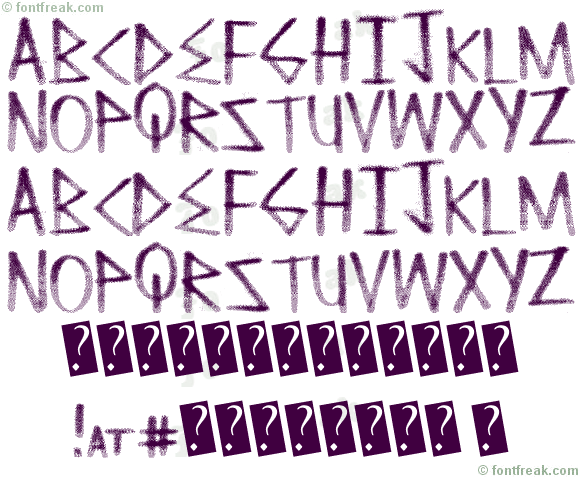
CleanFade
CleanFade by Xerographer Fonts is a striking display font that masterfully combines modern aesthetics with a hint of artistic flair. Released in 2012, this font is categorized as a decorative typeface, offering a unique visual appeal that is both bold and versatile. The CleanFade font features a distinctive stroke weight that varies throughout its characters, creating a dynamic sense of movement while maintaining a clean overall appearance. Its slightly irregular edges contribute to a handcrafted feel, making it ideal for projects that require a touch of personality.
The font’s visual characteristics include a balanced contrast in line thickness, ensuring legibility while still making a statement. The spacing between letters is thoughtfully designed, allowing for easy reading in various contexts. CleanFade's decorative elements give it an artistic edge, making it suitable for a wide range of applications. This font shines in creative projects such as wedding invitations, where its unique style can evoke a sense of elegance. It also works wonderfully for movie posters, capturing attention with its bold presence. Additionally, restaurant menus can benefit from CleanFade's distinctive look, making dishes stand out to patrons. Graphic designers and content creators will find this font particularly appealing, as it allows for creative expression across various mediums.